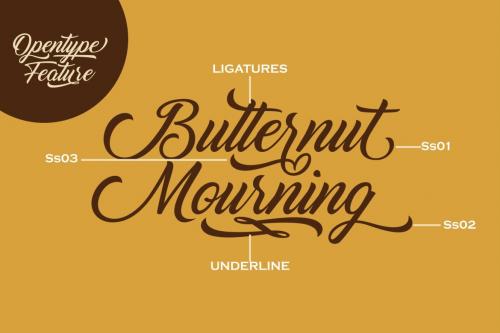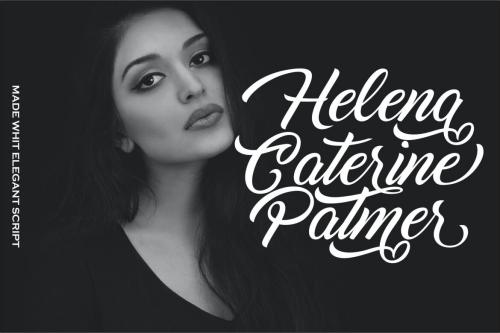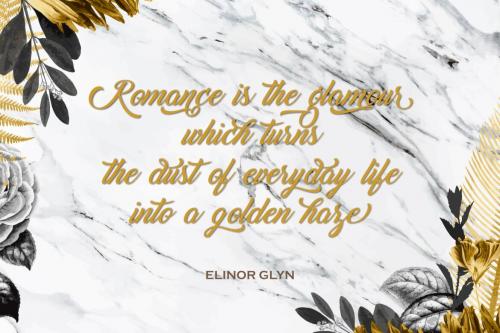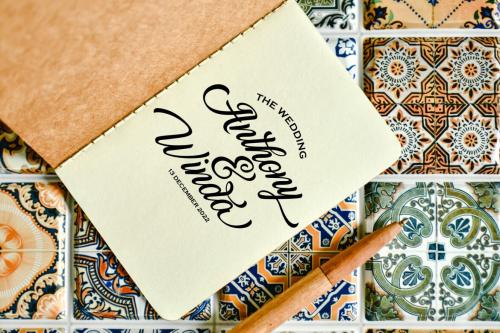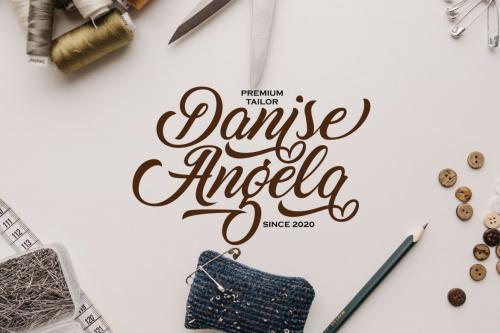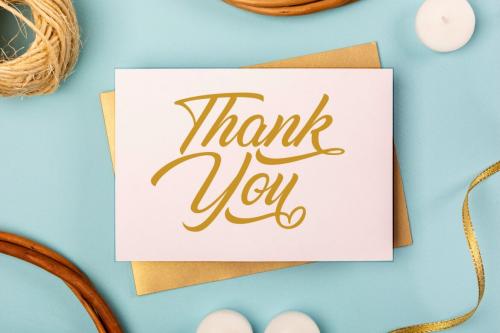
Deeezy - Elegant - Modern Brush Script
Elegant is a cute and casual handwritten font with an incredibly friendly feel. It features gorgeous swashes and ligatures that make this script incredibly versatile.
Whether you’re looking for fonts for Instagram or calligraphy scripts for DIY projects, Linkgray will turn any creative idea into a true piece of art!